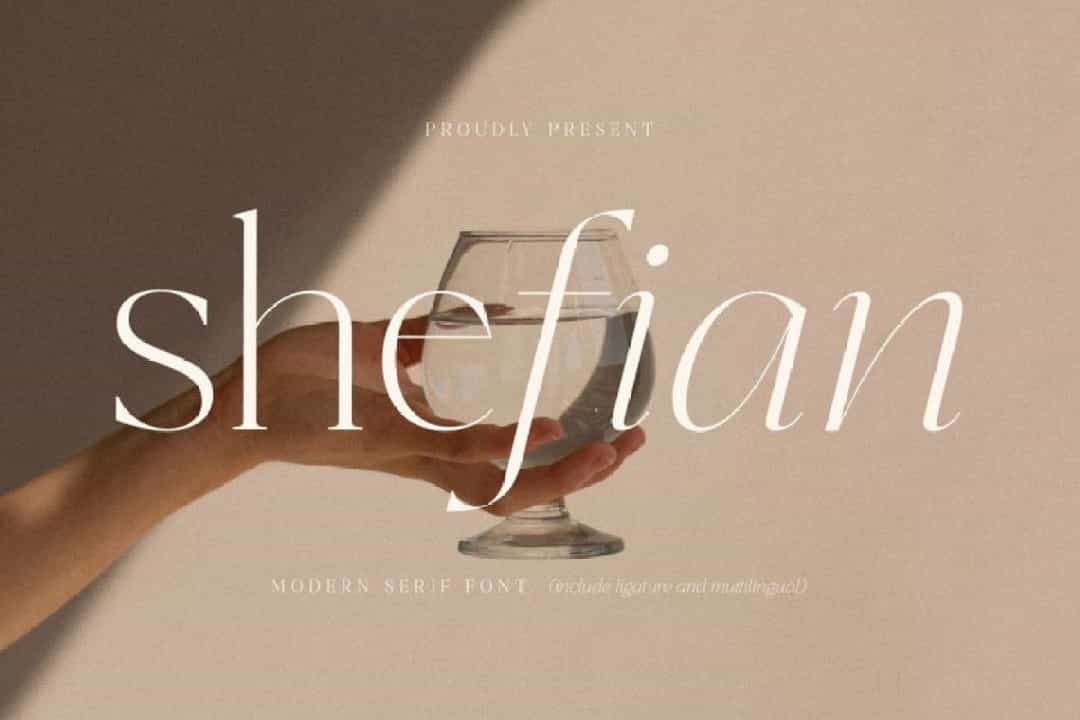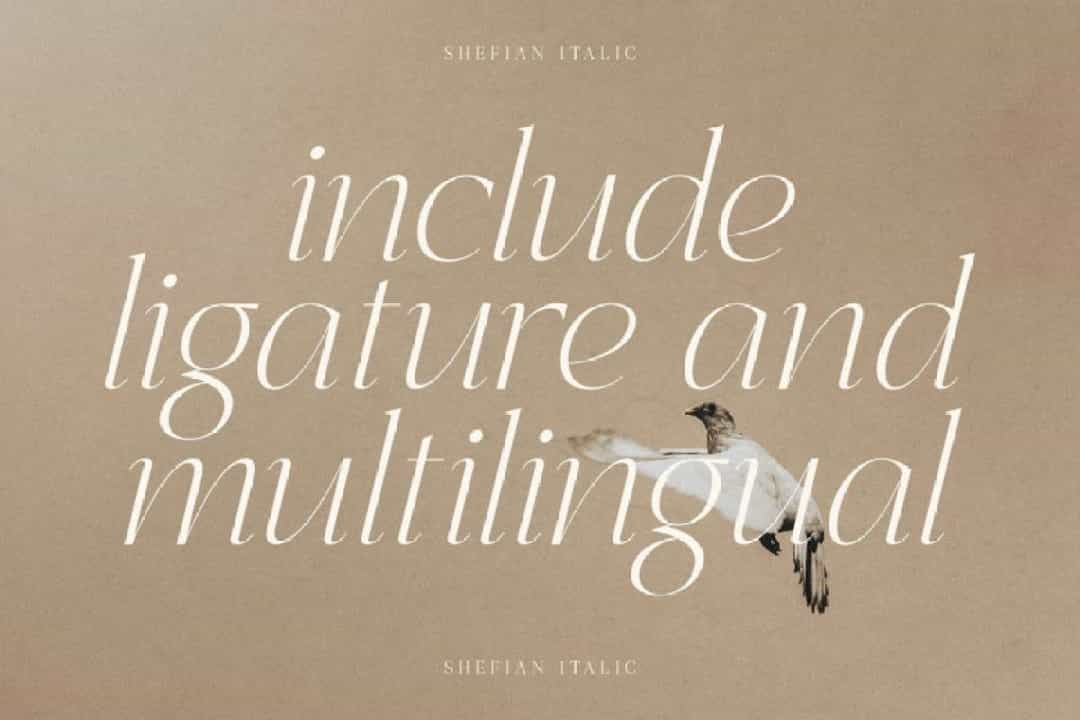
Shefian is an elegant, timeless serif typeface with its own distinct style, perfect for creating classy and elegant logos, book or film titles, fashion brands clothing magazines lettering quotes or many other uses.